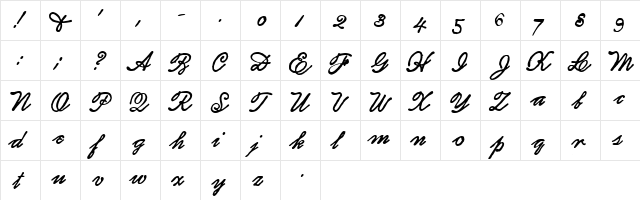
Archive Autograph Script Regular
| Foundry | Archive Type |
| Designer | Archive Type |
Design Context for Archive Autograph Script Typeface
Archive Autograph Script brings a calligraphic fluidity to the page — its connecting strokes and expressive curves give it an unmistakably human quality.
Font Pairing: Combine Archive Autograph Script with a simple geometric sans for maximum contrast — the tension between flowing curves and clean structure is a classic typographic pairing.
Pro Tip: Use Archive Autograph Script for short runs of text — names, titles, or taglines. Extended body copy in script faces tires the eye quickly.